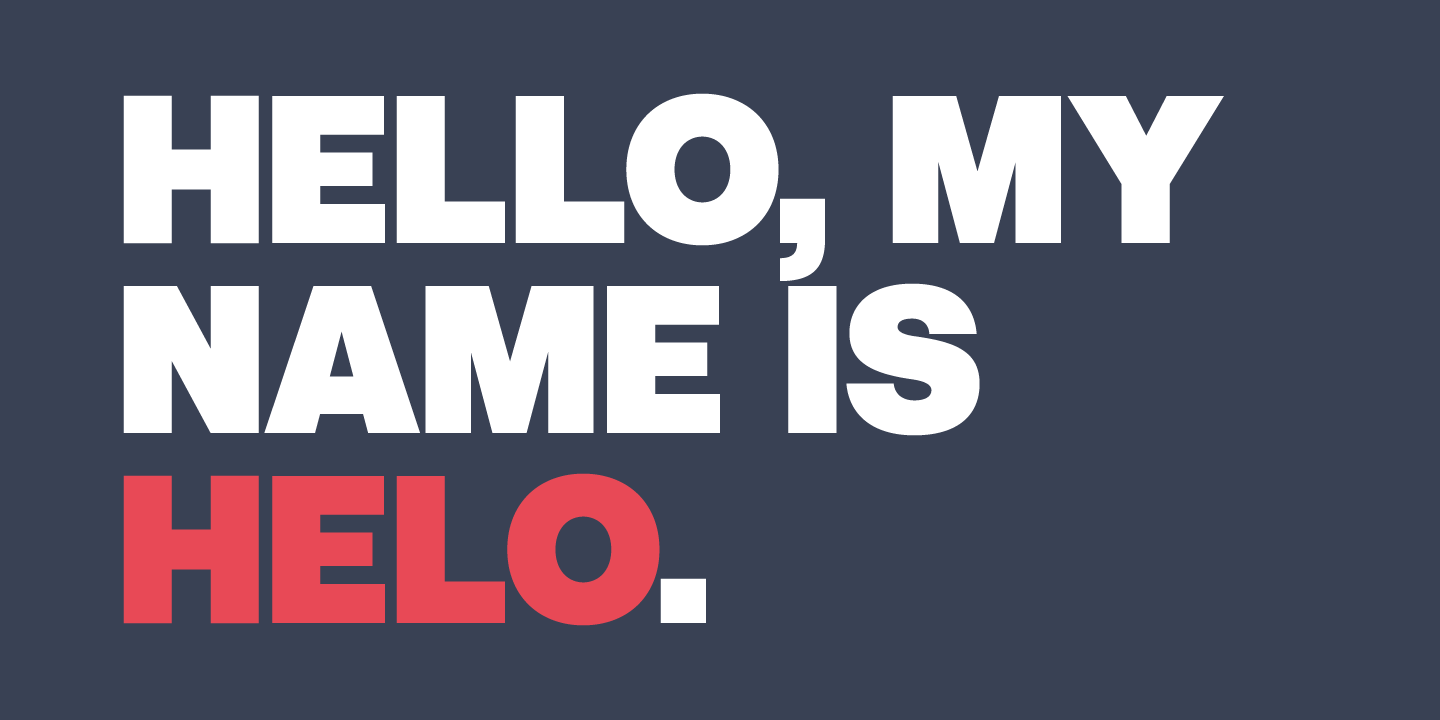
Helo
Designed by Richard Miller, Helo is a sans serif font family. This typeface has twenty-eight styles and was published by Miller Type Foundry.
Helo is a humanist font family made up of seven weights and two widths, with italics. Great for almost any use, Helo is a versatile workhorse typeface. Helo has a neutral feel, allowing it to be used on numerous projects across different platforms.